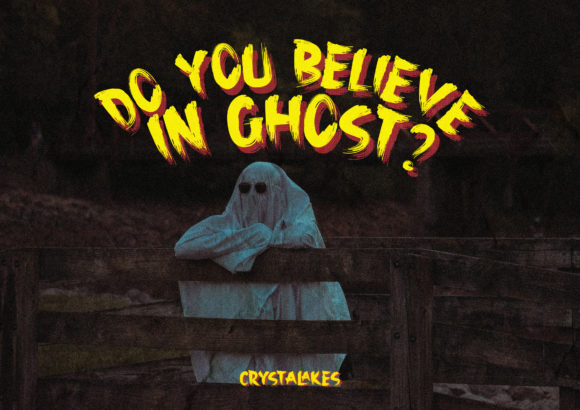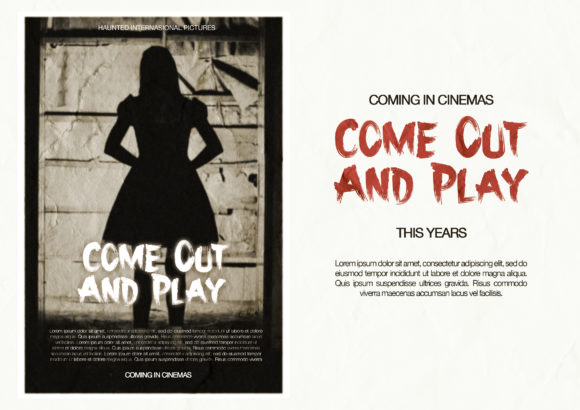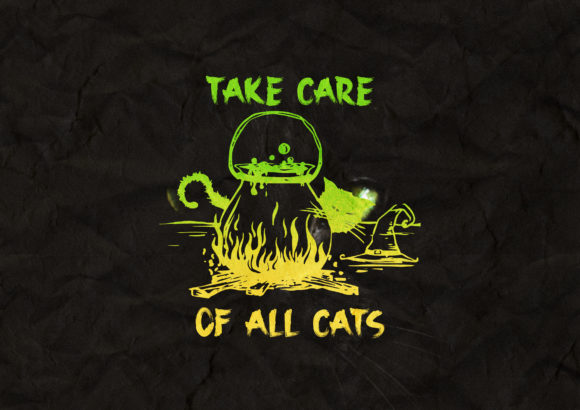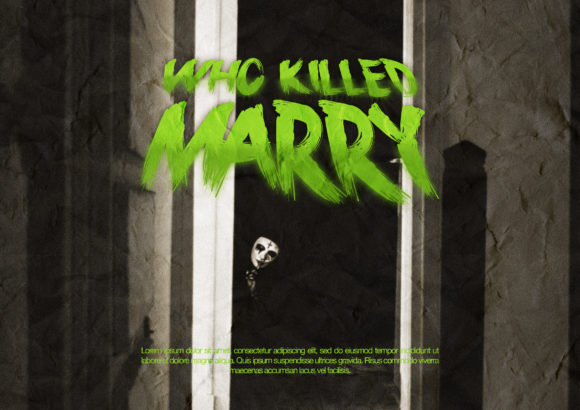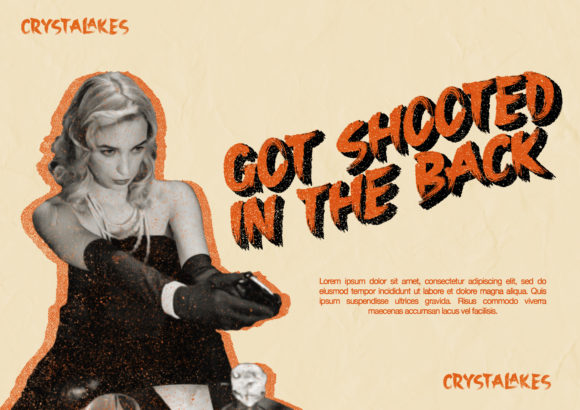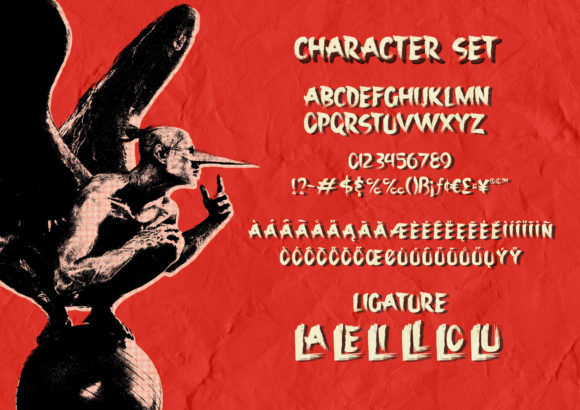
Introducing Crystalakes Brush Font: Elevate Your Crafting Ideas with a Cool, Brushed Display Font
Are you a designer, crafter, or DIY enthusiast looking for a unique and versatile font to take your projects to the next level? Look no further than Crystalakes Brush Font! This cool, brushed display font is perfect for adding a personal touch to a wide range of crafting ideas, from cards and invitations to branding, labels, and more.
What is Crystalakes Brush Font?
Crystalakes Brush Font is a beautifully designed font that mimics the look of hand-brushed letters. Its unique, organic feel adds a touch of warmth and personality to any project, making it perfect for crafters and designers who want to stand out from the crowd. With its bold, yet elegant appearance, Crystalakes Brush Font is sure to elevate your creations and leave a lasting impression.
What Can I Use Crystalakes Brush Font For?
The possibilities are endless with Crystalakes Brush Font! Here are just a few ideas to get you started:
- Cards and Invitations: Add a personal touch to your greeting cards, invitations, and party decor with Crystalakes Brush Font. Its unique, hand-brushed look is perfect for creating one-of-a-kind stationery and gifts.
- Branding and Packaging: Use Crystalakes Brush Font to create eye-catching labels, packaging, and branding materials that will make your products stand out on store shelves.
- DIY Crafts: From scrapbooking and journaling to crafting and mixed media, Crystalakes Brush Font is the perfect addition to any DIY project. Use it to add a personal touch to your creations and make them truly special.
Why Choose Crystalakes Brush Font?
So why choose Crystalakes Brush Font over other fonts on the market? Here are just a few reasons:
- Unique and Versatile: Crystalakes Brush Font is a one-of-a-kind font that can be used in a wide range of projects, from formal to informal, and from digital to print.
- High-Quality Design: Crystalakes Brush Font is designed with high-quality and clarity in mind, ensuring that your projects look professional and polished.
Here are a few tips and tricks to help you get the most out of Crystalakes Brush Font:
- Experiment with Colors: Try pairing Crystalakes Brush Font with different colors and textures to create unique and eye-catching effects.
- Play with Size: Experiment with different font sizes to add emphasis and create visual interest in your projects.
- Combine with Other Fonts: Try pairing Crystalakes Brush Font with other fonts to create interesting and dynamic text combinations.
In conclusion, Crystalakes Brush Font is a versatile and unique font that is perfect for designers, crafters, and DIY enthusiasts looking to add a personal touch to their projects. With its cool, brushed display look and ease of use, Crystalakes Brush Font is sure to elevate your creations and take your crafting ideas to the next level. So why wait? Download Crystalakes Brush Font today and start creating!